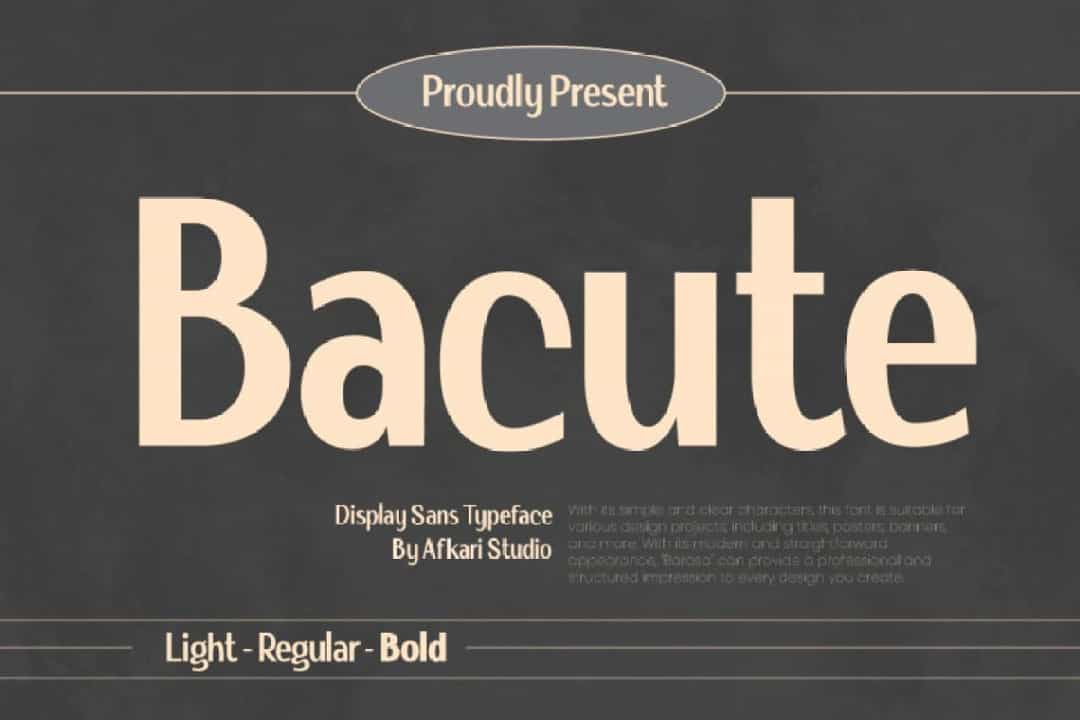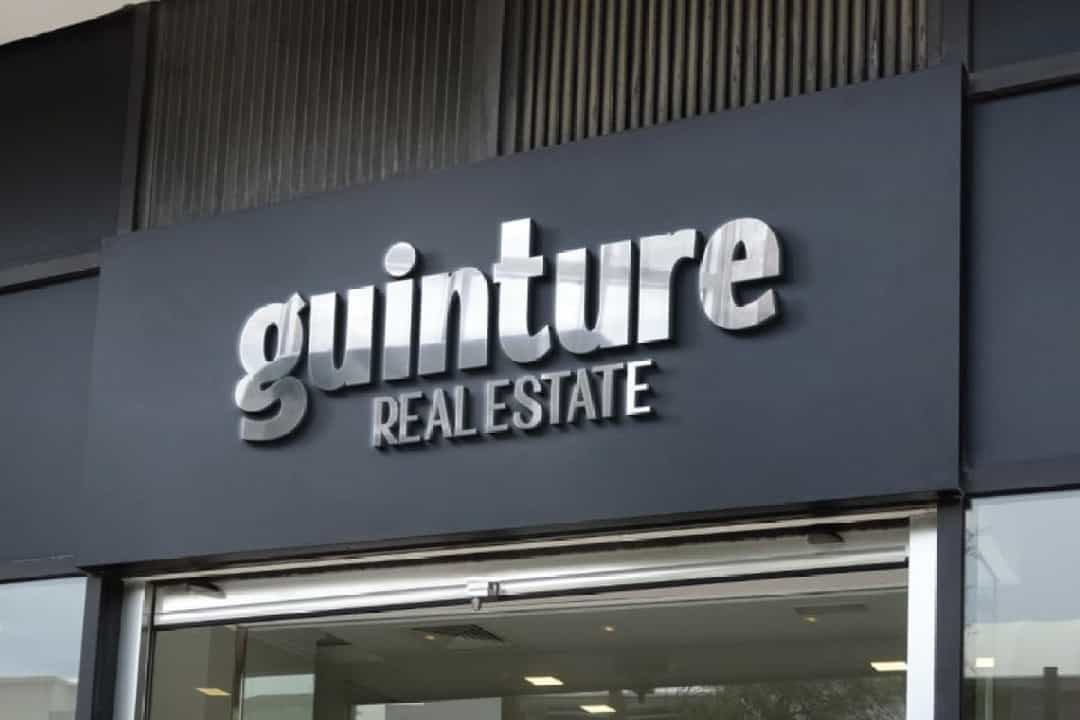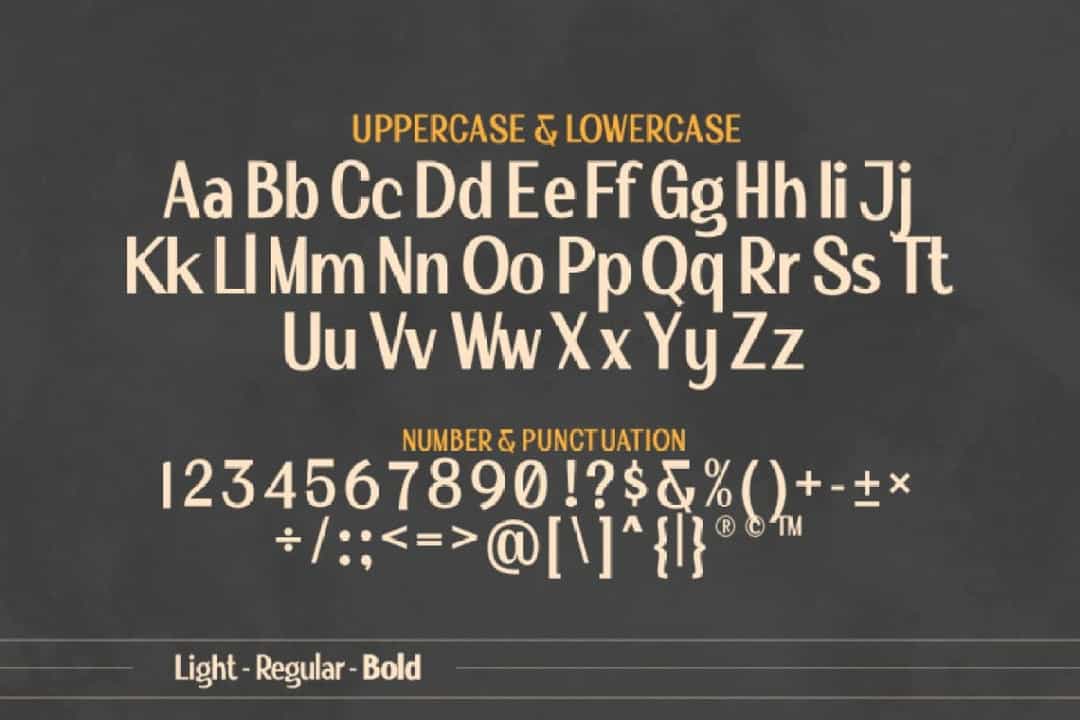
Discover Bacute Font, part of the Sans Serif Display collection—a versatile and unique font perfect for adding a personal touch to your projects. Download it for free and enjoy crafting designs with style, from invitations to social media posts. This font is available exclusively for personal use, giving you the freedom to create without limits. Unlock your creativity with Bacute Font today!
BACUTE Display Sans Typeface offers an appealing blend of contemporary style and readability, giving your work a refined yet clear appearance. Ideal for Logos Posters, Product Labels, Product Labels Cartoons Comics Editorial Designs Website, Blog Elements Social Media Posts Packaging Designs Social Media Subtitles and many other design tasks!